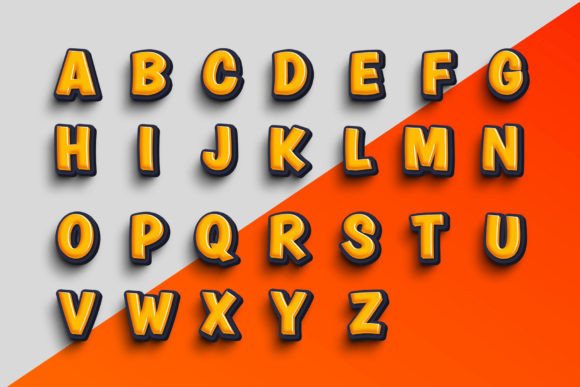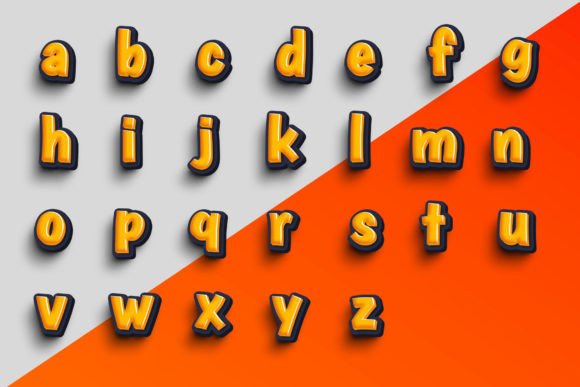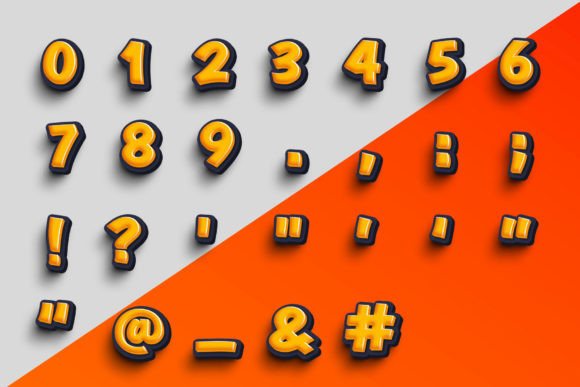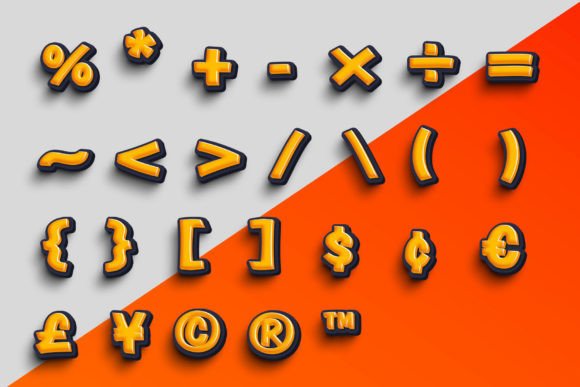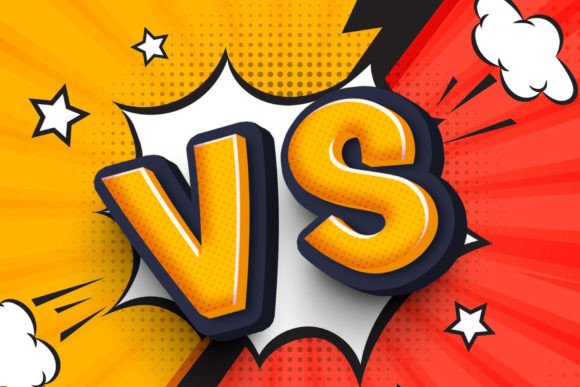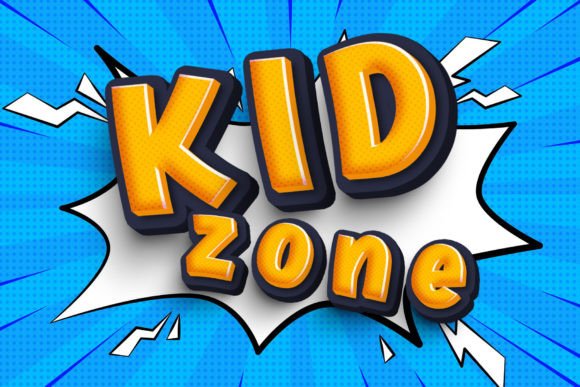
Introducing Comic Toon 3D Font: Add a Pop of Fun and Drama to Your Designs
Are you tired of using the same old fonts in your designs? Look no further than Comic Toon 3D, a cool and fun 3D font that’s perfect for adding a touch of drama and emphasis to your titles and words. This vibrant font is a wonderful asset to any designer’s font library, and we’re excited to dive into its features and benefits.
What is Comic Toon 3D Font?
Comic Toon 3D is a unique and eye-catching font that’s designed to add a 3D effect to your text. With its bold and colorful style, this font is sure to grab attention and make your designs stand out. Whether you’re working on a project for a client or creating something for personal use, Comic Toon 3D is the perfect choice for titles, headings, and words that need a more dramatic emphasis.
Key Features of Comic Toon 3D Font
- 3D Effect: Comic Toon 3D features a stunning 3D effect that gives your text a fun and playful look.
- Colorful: This font comes in a range of colors, allowing you to match it to your brand or design scheme.
- Bold and Dramatic: Comic Toon 3D is perfect for titles and words that need to make a statement.
Tips for Using Comic Toon 3D Font
Here are some tips for getting the most out of Comic Toon 3D:
- Use it sparingly: Comic Toon 3D is a bold font, so use it sparingly to avoid overwhelming your design.
- Experiment with colors: Try out different colors to find the one that works best for your design.
- Pair it with other fonts: Comic Toon 3D looks great when paired with other fonts, so don’t be afraid to experiment.
Comic Toon 3D is a fun and versatile font that’s perfect for designers and crafters who want to add a pop of drama and emphasis to their designs. With its bold and colorful style, this font is sure to grab attention and make your designs stand out. Whether you’re working on a project for a client or creating something for personal use, Comic Toon 3D is a wonderful asset to have in your font library.